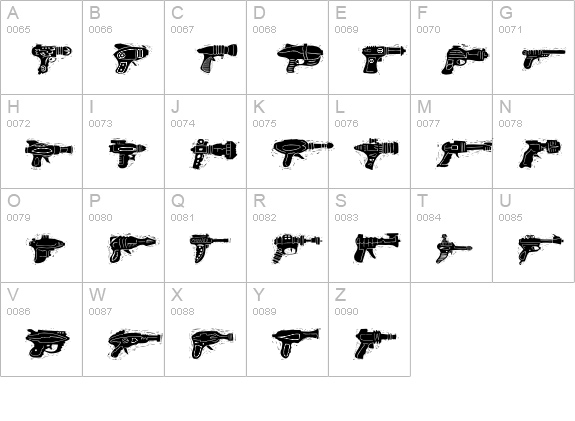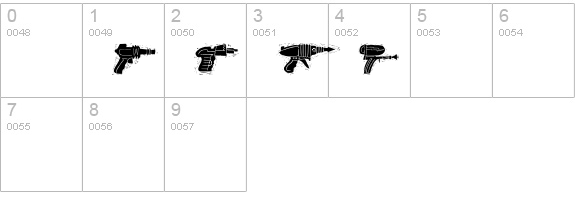
Rayguns Font Details
Introducing Rayguns, a captivating and futuristic font that will transport your designs into a world of intergalactic adventures. With its sleek and edgy letterforms, Rayguns is the perfect choice for projects that demand a bold and innovative typographic solution. This cutting-edge font captures the essence of sci-fi and technology, exuding a sense of power, energy, and excitement. Its sharp angles and intricate details create a dynamic and visually striking appearance, making it ideal for titles, headings, logos, and gaming graphics. Rayguns font is not only visually stunning, but it also offers versatility in its usage. Whether you're designing for a science fiction movie poster, a video game interface, or a futuristic branding project, Rayguns will elevate your designs to new heights. And the best part? Rayguns is available for free! Yes, you heard it right. This remarkable font can be freely downloaded at FontsMarket.com, ensuring that it is accessible to all designers, regardless of their budget or resources. So why wait? Unleash the power of Rayguns in your designs and let your creativity soar to new galaxies. Download this extraordinary font today and experience the thrill of futuristic typography at your fingertips.